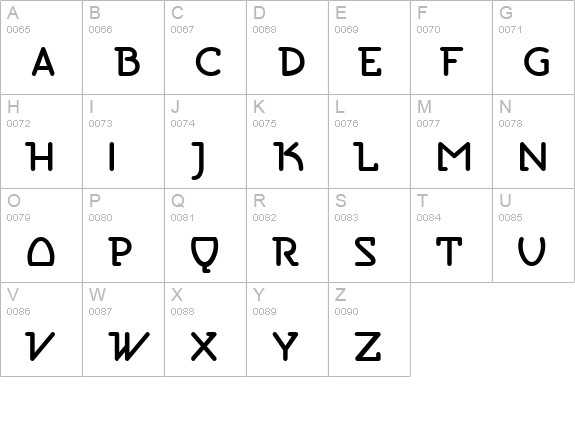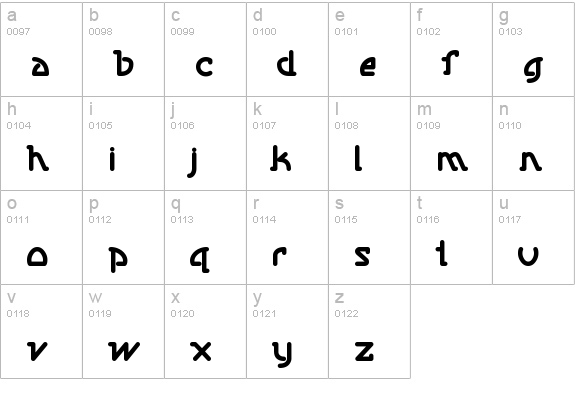
SanitaryDemi Font Details
SanitaryDemi is a sleek and modern font that exudes professionalism and sophistication. Its clean lines and bold characters make it perfect for a wide range of design projects, from business presentations to marketing materials. The versatility of SanitaryDemi allows it to be used in both digital and print media, ensuring a consistent and polished look across all platforms. What sets SanitaryDemi apart is not just its aesthetic appeal, but also the fact that it is available for free download at FontsMarket.com. This means that you can easily access this high-quality font without any cost, making it a valuable asset for designers, businesses, and individuals looking to elevate their projects with a touch of elegance and style. Download SanitaryDemi today and take your designs to the next level with this sophisticated and versatile font.